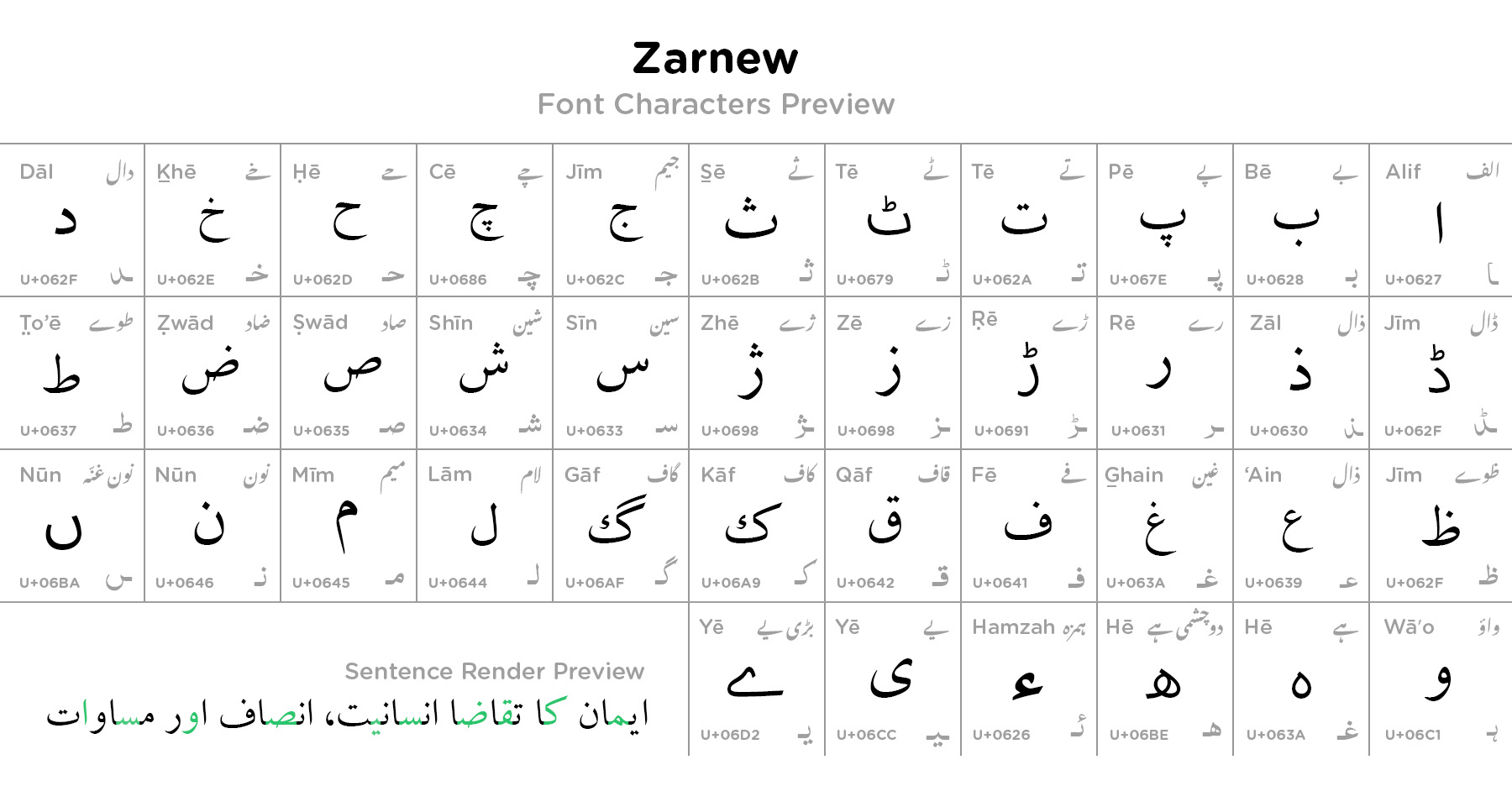
Zarnew is a Persian font released by Monotype in 1998, specifically designed for 1995 Windows computers. This font features 463 characters and 458 glyphs, providing a versatile tool for designers. It is a thin Qalam writing font, best suited for long text applications rather than short text. This elegant typeface has carefully designed letters that add sophistication to any Urdu typo project. The font is available in normal and medium weights and has a medium (normal) width. Its letters are thick with a variable thickness that mimics the flow of a calligraphic pen. It is a Naskh-inspired font with clear horizontal emphasis, pointy but slanted terminals, and a compact baseline. This font includes some modern design effects that further improve its formal appeal.